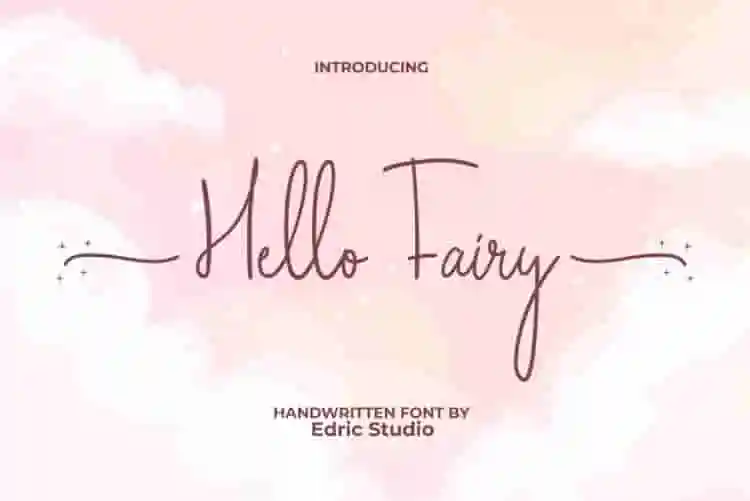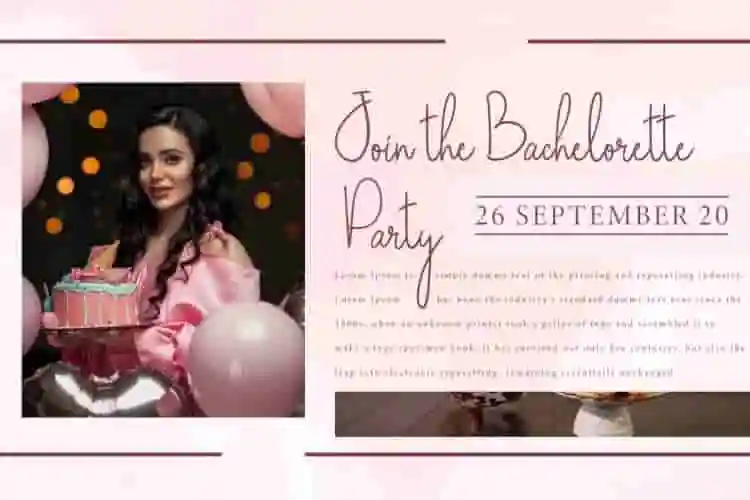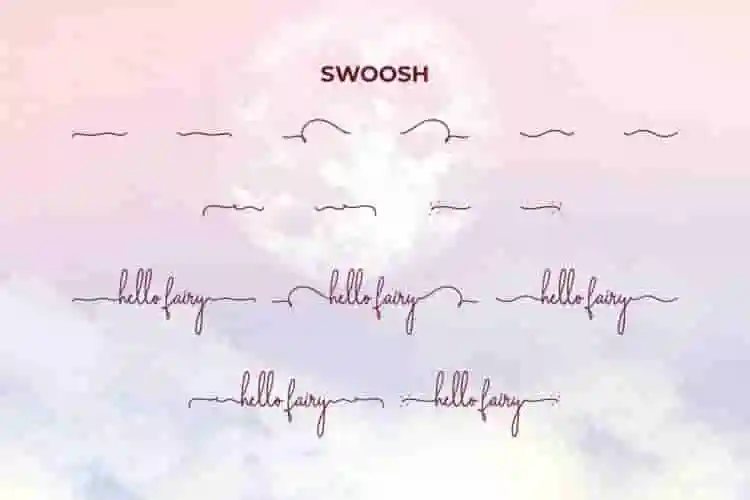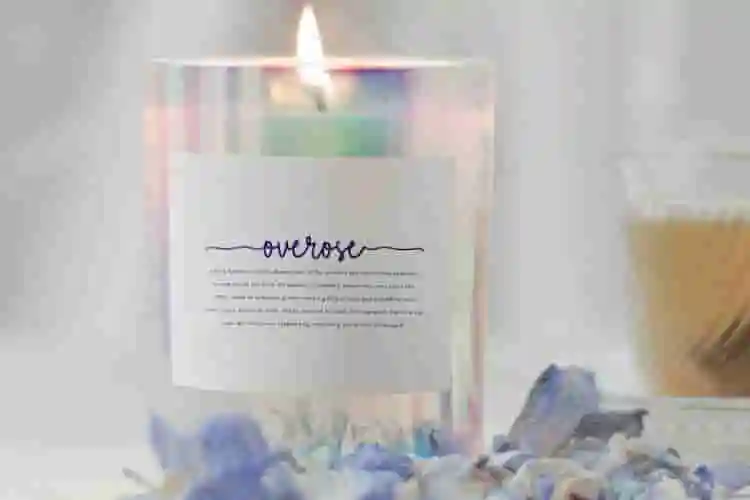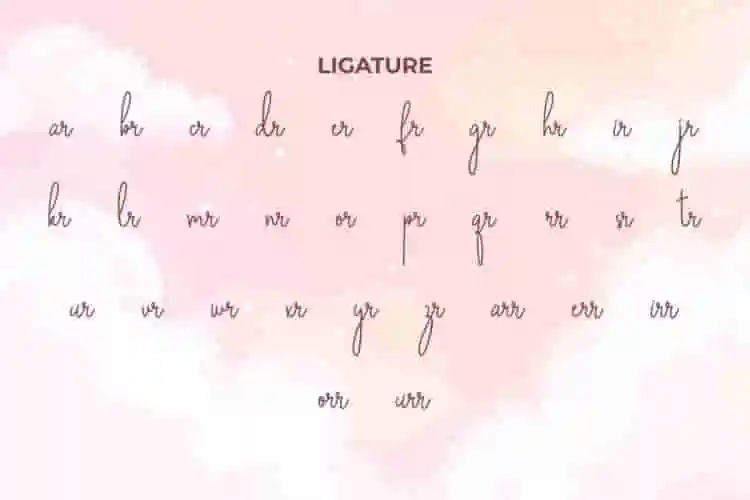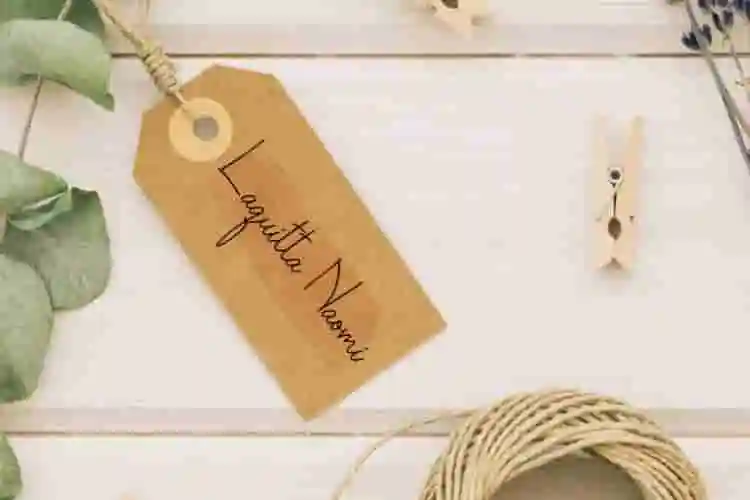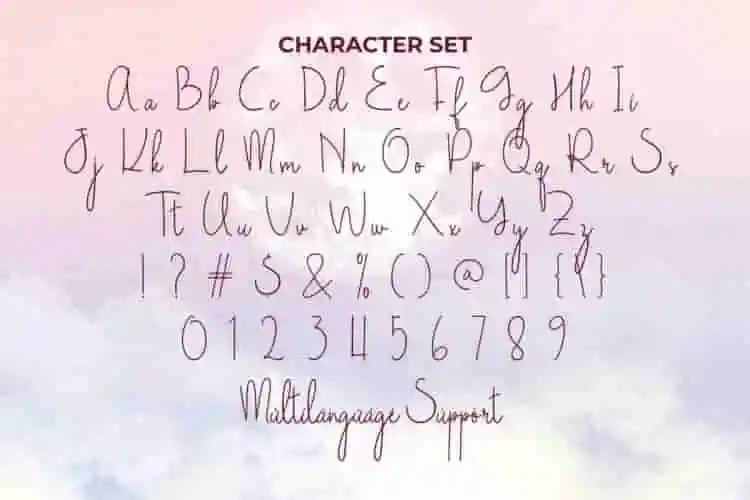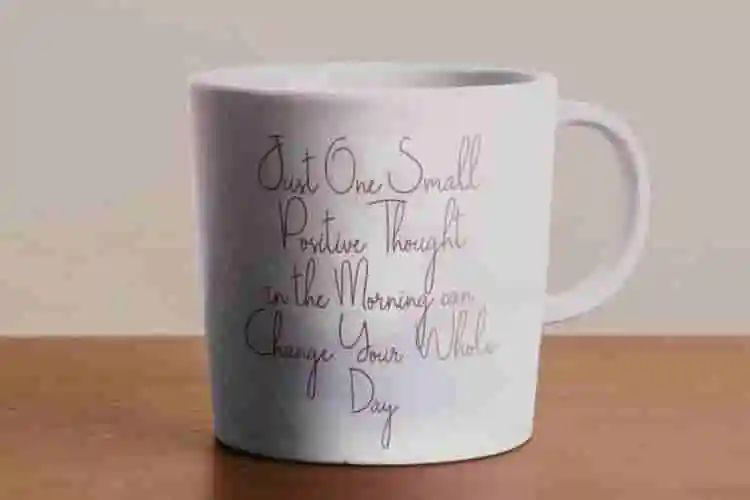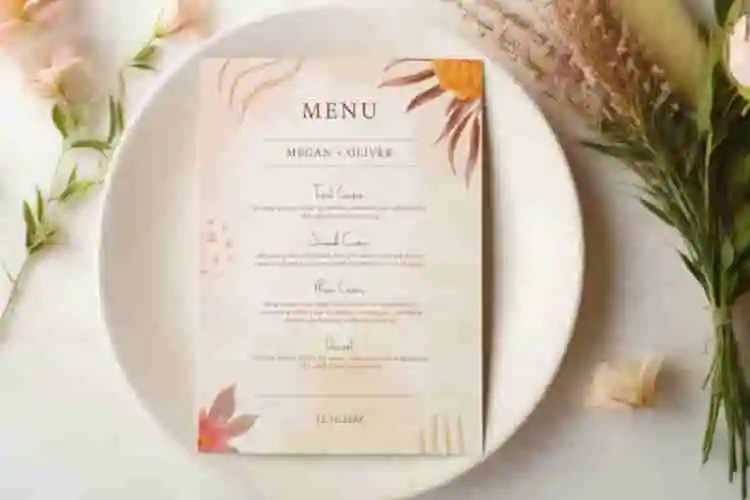
Hello Fairy Font is a beautiful fantasy font based on soft handwriting with natural flow. It features amazing initial and final swashes and equally charming ligatures. It is perfect for a wide range of designs, including greeting cards, invitations, label tag, modern logos, product packaging, quotes, social media post, sticker, websites and more.
Hello Fairy Font comes with a full set of Uppercase and Lowercase Basic Characters, Number, a large range of Punctuation, Symbol, Ligature and Swoosh. This handwritten font exudes charm and ensures readability that evokes beauty, crafted with precision in every stroke and curve this font flows with natural and smooth elegance. Enter a magical world of limitless creativity using this font that brings a personal touch to any project, clothing brand, event organizer, home furniture, restaurant, spa salon, theme park, etc.
Say hello to charm and creativity with Hello Fairy Handwriting Font – a playful and elegant handwriting font that brings a touch of magic to your designs. With its soft curves and fairy-tale flair, this font is perfect for adding personality and warmth to any creative project.
Whether you’re designing invitations, planner pages, quotes, greeting cards, or product packaging, Hello Fairy is the perfect choice. It’s the kind of font that feels handwritten, personal, and full of heart – ideal for crafters, small business owners, and anyone who wants their designs to sparkle. Created to mimic authentic handwriting with a touch of whimsy, this handwriting font is designed to be both beautiful and readable. It’s perfect for children’s books, birthday themes, logos, DIY projects, and social media content that needs to feel soft and magical.